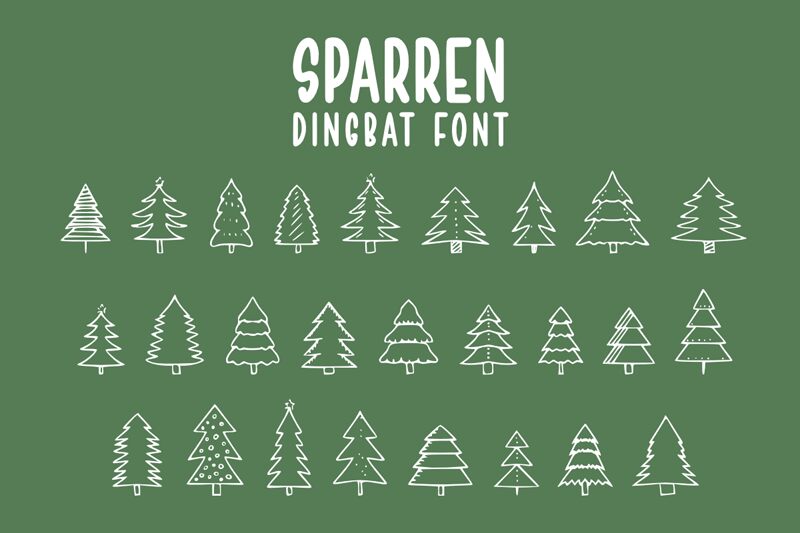
Sparren
Sparren, designed by Muhammad Yafinuha, is a dingbat font that brings the tranquil essence of nature to your fingertips.
Capturing the majestic beauty of pine trees in its design, this typeface invites a touch of the wild outdoors into various creative endeavors. Ideal for projects that aim to evoke natural elegance and rustic charm, Sparren's nature-inspired style seamlessly integrates with branding, decorative text elements, and environmental graphics.
Its distinctive approach to typography makes it a versatile tool for designers seeking to infuse their work with organic sophistication.